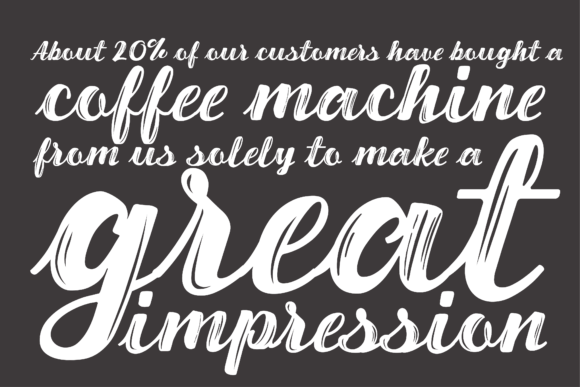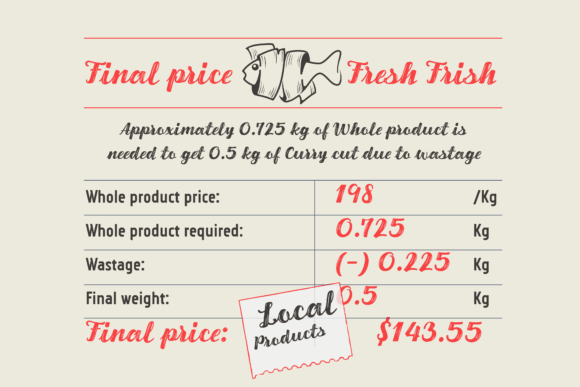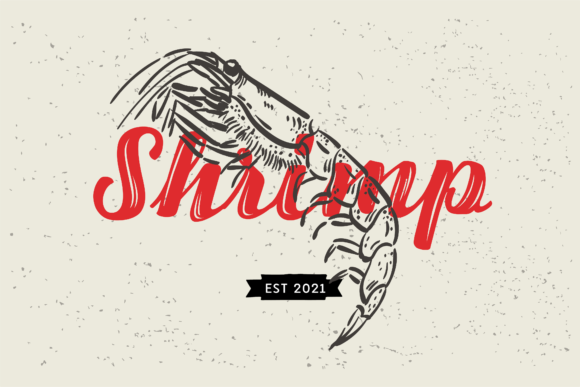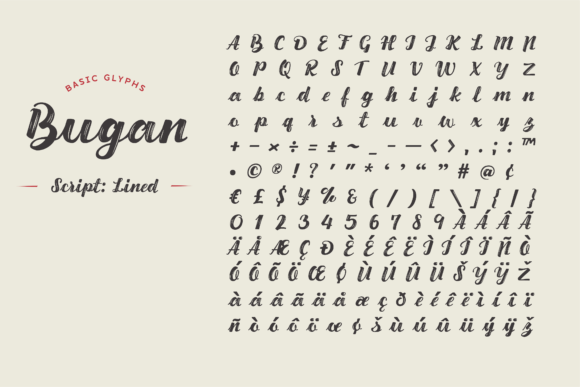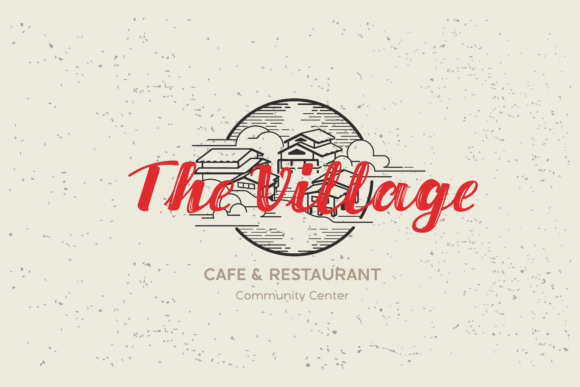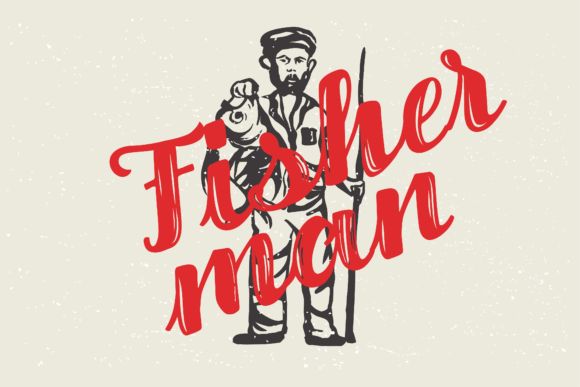
Bugan Script Font
About Bugan Script Font
Bugan Script is a flowing brushed handwritten font. This font reads as strong, confident, and dynamic and can add tons of nostalgic character to your designs.